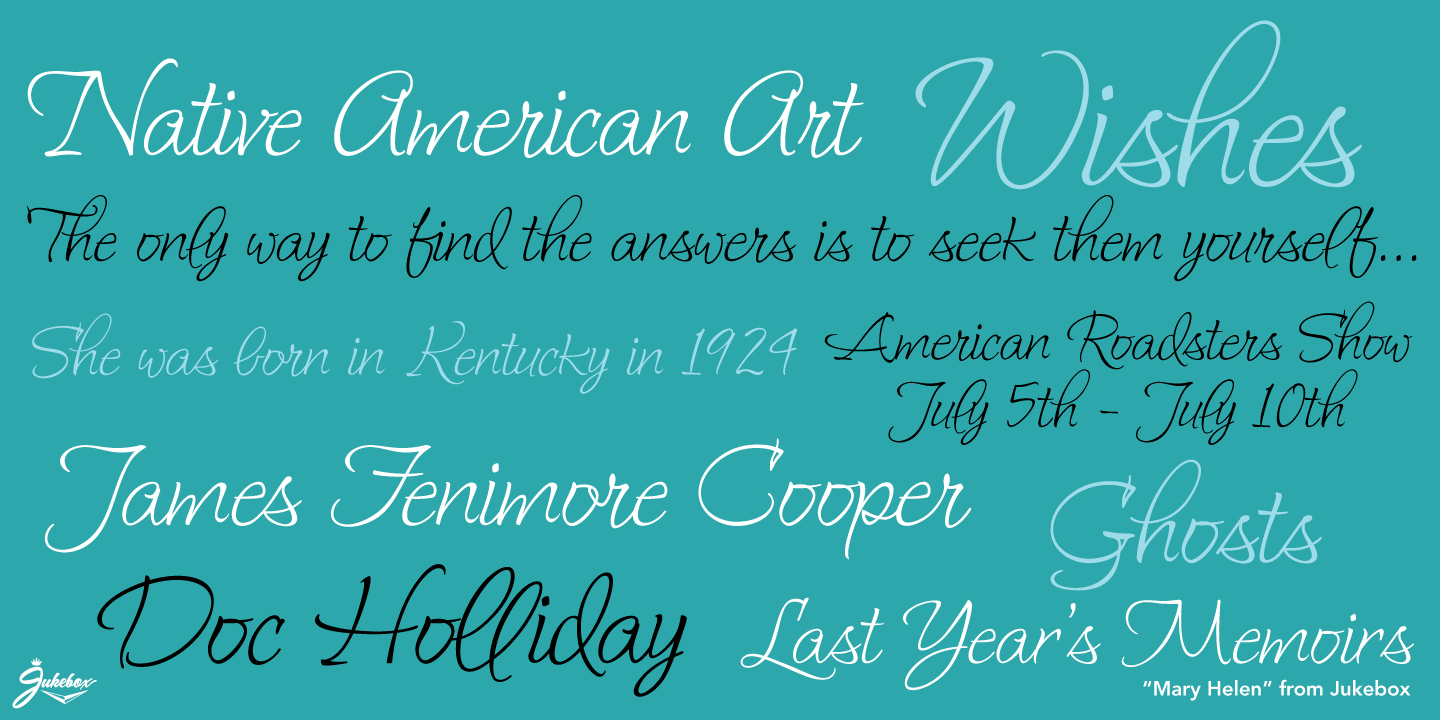
This elegant typeface is an exquisite choice for projects demanding a touch of sophistication, charm, and classic appeal. Imagine it adorning wedding invitations, providing a refined feel to luxury brand packaging, or enhancing the elegance of high-end editorial layouts. Mary Helen JF Font is also perfectly suited for designing personal stationery, crafting beautiful social media graphics for lifestyle bloggers, or creating distinguished logos for boutiques and artisanal businesses. Its graceful lines and timeless character make it an excellent option for any design that aims to convey quality, heritage, and a bespoke feel, such as custom gift tags, handcrafted product labels, or formal event signage.
What makes Mary Helen JF Font so exciting? It embodies a delicate balance between classic beauty and modern readability. The thoughtful curves and precise detailing in each character speak volumes about its craftsmanship, lending an air of understated luxury to any text. This font doesn’t just present words; it frames them with an inherent grace that captures attention without being overtly flashy. It’s engineered to elevate your content, making it feel more exclusive, personal, and meticulously designed. The inherent warmth and inviting nature of its letterforms make it particularly effective for conveying messages of welcome, celebration, and intimate connection.
The Mary Helen JF Font family typically offers a range of weights and styles to ensure maximum design flexibility. You might find options like Regular, Italic, and perhaps even a Light or Bold version, each meticulously designed to maintain the font's characteristic elegance while providing different visual impacts. These variations allow designers to create harmonious text hierarchies, using the various weights for headlines, subheadings, and body text while maintaining a consistent aesthetic. The availability of multiple styles ensures that Mary Helen JF Font can be seamlessly integrated into diverse design applications, from subtle branding elements to prominent display text, all while preserving its distinctive charm.
Whether you're creating an unforgettable invitation, building a luxurious brand identity, or simply adding a touch of refined beauty to your designs, Mary Helen JF Font Free Download is an exceptional choice. Its timeless elegance and versatile nature will ensure your creations always communicate sophistication and style.